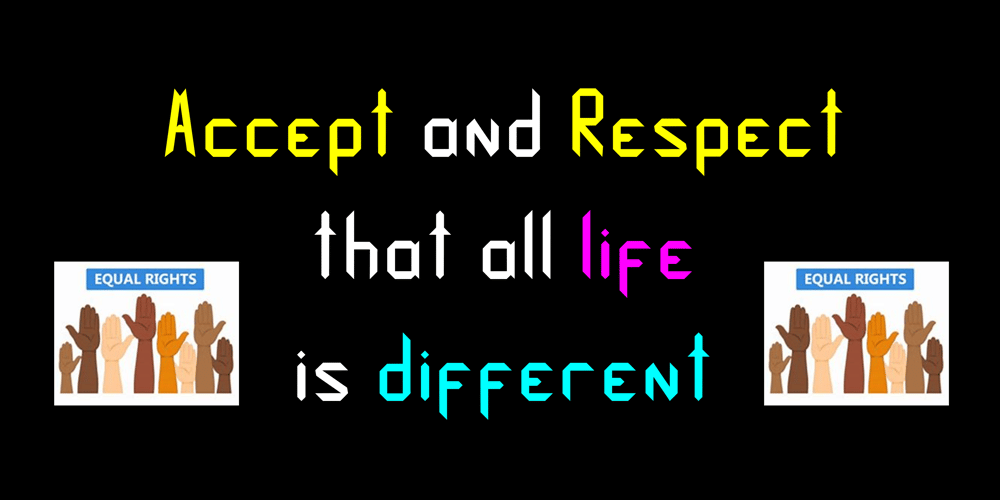
Diashapes Font Family was designed by Mark Charles and published by Curvature Creations. Diashapes contains 1 styles and family package options. My font Diashapes has been created by the power Point shape Diagonal Stripe and its angles act like curves. It is a unique font that stands out like a building frame work.